Incredible Naval Fonts 2022
Incredible Naval Fonts 2022. Are you looking for the perfect navy fonts? Free fonts often have not all characters and signs,.
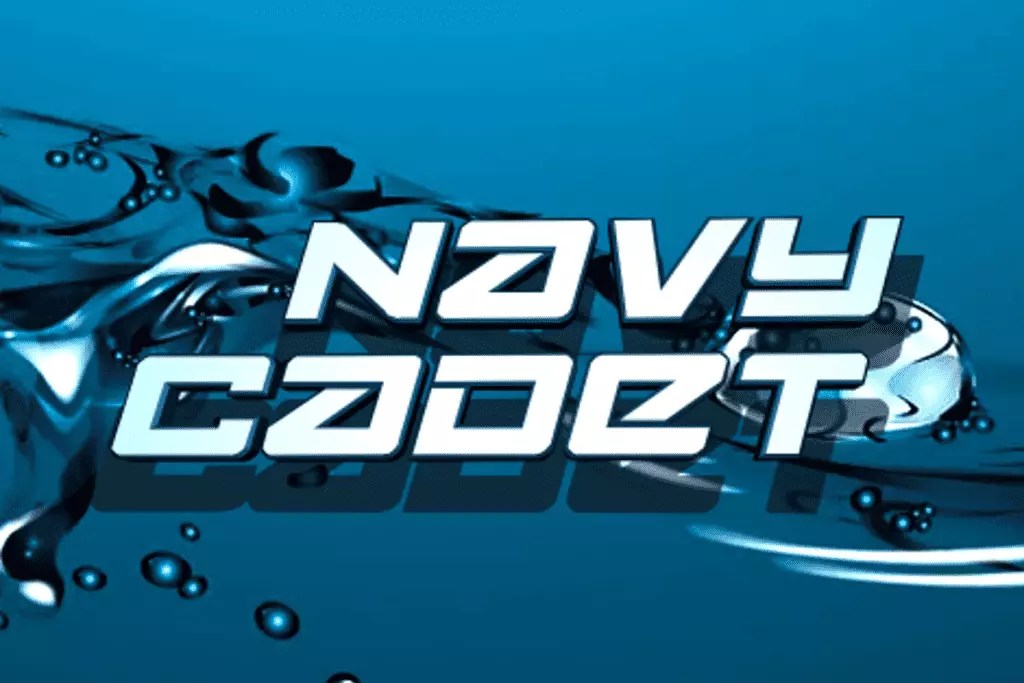
Are You Looking For The Perfect Naval.
Lighthouse sea font (otf, ttf, woff) a nautical. If you want to create professional printout, you should consider a commercial font. Each ship symbol has a mirrored.
Nasalization is an ultramodern sans serif typeface with a nod to the 1975 nasa logo. 7 professional naval fonts to download please note: Wargate is a solid stencil style inspired by military design and urban graffiti.
This is a dingbat font with over 90 glyph symbols of us naval ships. The us navy font was designed by daniel zadorozny. Instant downloads for 14 free navy fonts.